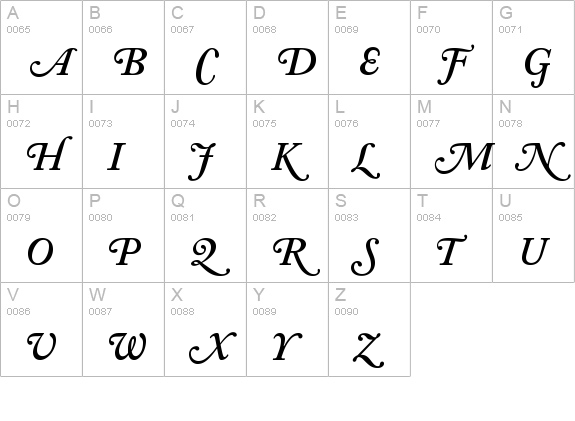
Adobe Caslon Swash Semibold Italic Font Details
Adobe Caslon Swash Semibold Italic is a sub-bold, structured, italic variant in the Adobe typeface family \xE2\x80\x94 well suited to sub-headlines and emphasised passages.
The Adobe Caslon Swash Semibold Italic font is a sophisticated and elegant typeface that exudes a sense of classic refinement and timeless beauty. With its distinctive swashes and bold yet graceful curves, this font is perfect for adding a touch of sophistication to any design project. What sets Adobe Caslon Swash Semibold Italic apart is its unique blend of traditional elegance with a modern twist, making it a versatile choice for a wide range of applications. Whether you're designing a wedding invitation, creating a logo, or working on a branding project, this font will add a touch of sophistication and style. Best of all, Adobe Caslon Swash Semibold Italic is available for free download at FontsMarket.com. So you can easily add this beautiful font to your collection and use it to elevate your design projects without any additional cost. Don't miss out on the opportunity to enhance your designs with the timeless charm of Adobe Caslon Swash Semibold Italic - download it for free today!